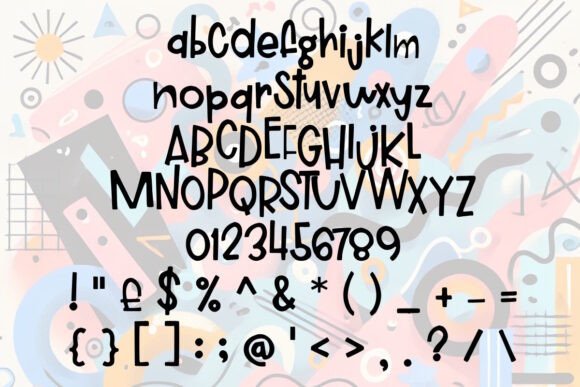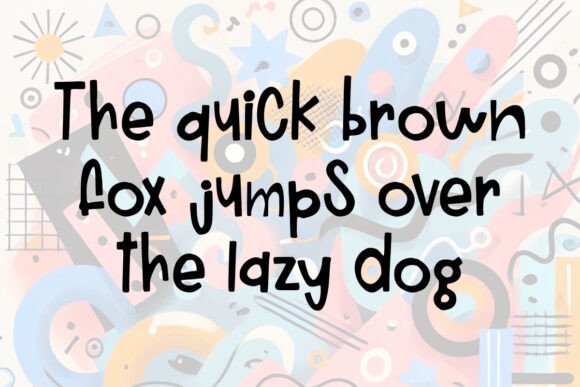
Introduction to Shift Happens Font
You know that moment when a spark of creativity strikes, and you can’t wait to bring your idea to life? For designers, that rush of inspiration often comes with the need for the perfect font to match their vision. Enter the Shift Happens Font, a playful and charming design element that’s about to shake up your creative project.
As a valuable addition to any designer’s toolkit, Shift Happens Font offers a unique blend of personality and movement that’s perfect for branding, social media graphics, and more. With its hand-drawn charm and wobbly lines, this font adds a touch of whimsy and fun to any design, making it a must-have resource for creatives who crave something new and exciting.
Key Features of Shift Happens Font
- Unique characteristics include a modern, bold aesthetic and a versatile style suitable for a range of creative applications.
- Designed to be highly legible, even at small font sizes, making it an excellent choice for digital and print projects.
Honest Review: Shift Happens Font
One of the things that stands out about the Shift Happens Font is its high quality. The font is clean, modern, and has a transparent background, making it perfect for overlaying on images or videos. The font is also highly versatile and can be used for a variety of creative projects, from logos to social media graphics.
Here are some of the things that work well with the Shift Happens Font:
- ✨ Transparent background for easy overlaying on images or videos
However, there are a few limitations to the Shift Happens Font:
- ⚠️ Limited font styles, which may not be suitable for complex designs
- ⚠️ May not be suitable for large-scale printing
Overall, I’m impressed with the Shift Happens Font. It’s a great design resource that’s perfect for creative projects. While it may have some limitations, the font is well-designed and easy to use.
How to Use Shift Happens Font
The Shift Happens Font is a high-quality design resource perfect for creative projects. This versatile font can be used for various purposes, from titles and headings to body text.
Tips for Getting the Most Out of Shift Happens Font
Use the Shift Happens Font with a transparent background to create a modern and sleek look.
Experiment with different font sizes and colors to create visual interest.
Combine the Shift Happens Font with other design elements to create a unique and eye-catching design.
Does the Shift Happens Font have a transparent background?
Yes, the Shift Happens Font has a transparent background, making it perfect for use on top of images or other design elements. The font’s transparent background allows for a seamless integration with your design, giving you more creative freedom to design your project.